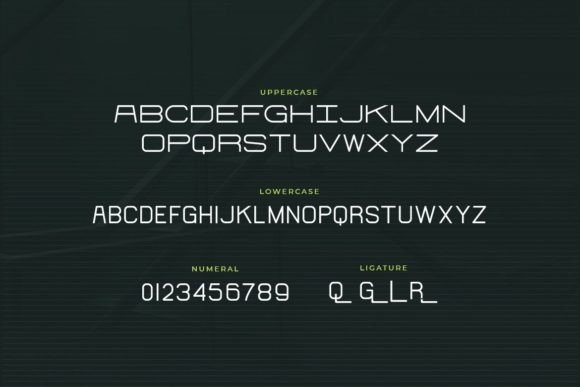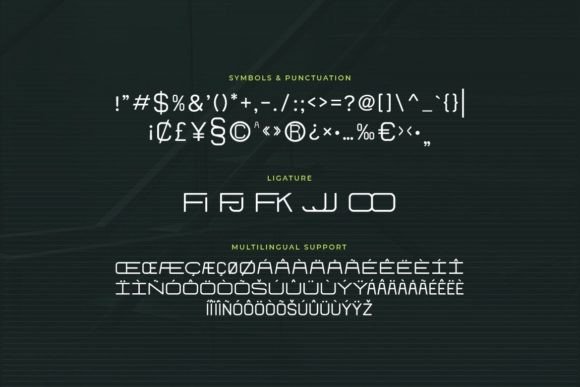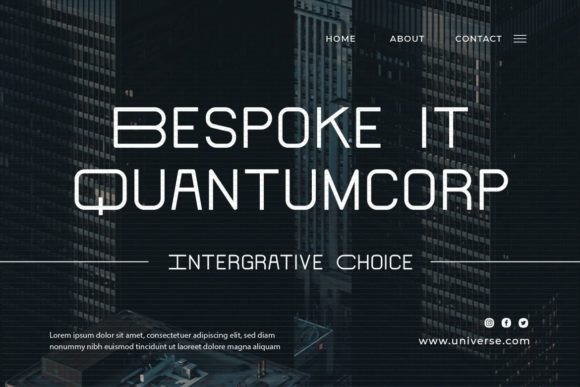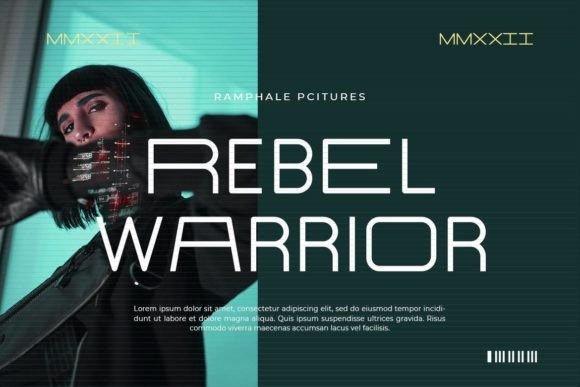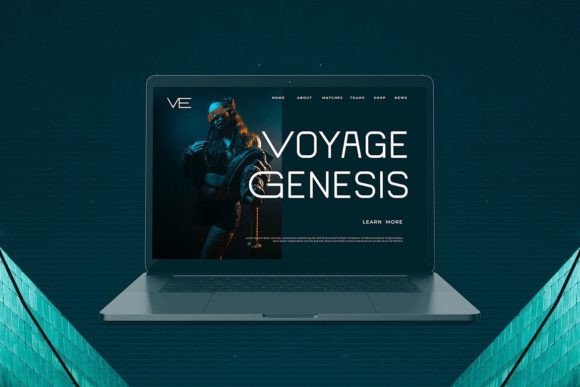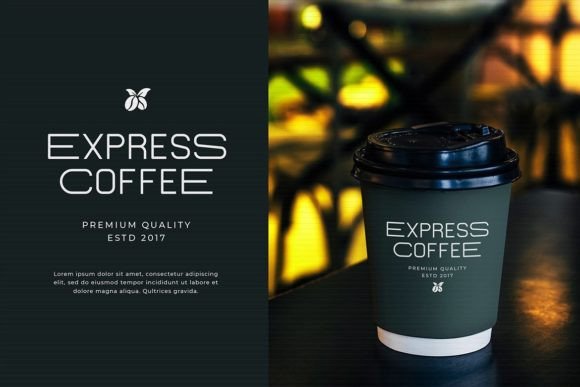
Introduction to Ramphele Font
Have you ever stared at a blank page, waiting for the perfect font to bring your creative project to life? For designers, finding the right font can be a game-changer. It’s the difference between a mediocre design and a stunning one that grabs attention and leaves a lasting impression.
That’s where the Ramphele Font comes in – a high-quality, mixed-width typeface that’s perfect for business cards, posters, websites, and so much more. With its modern look and transparent background, this font is sure to elevate any design project. And the best part? It’s available for free download, making it an invaluable resource for designers of all levels.
Whether you’re working on a freelance project or a full-fledged design campaign, the Ramphele Font is a valuable addition to your design toolkit. With its PUA encoded glyphs and ligatures, you’ll have access to a world of creative possibilities and be able to take your designs to the next level.
Key Features of Ramphele Font
- High-quality, professional design perfect for creative projects and design resources.
- Designed with a unique aesthetic, setting it apart from other free fonts available for download.
- Features a clean and modern design, ideal for use in logos, branding materials, and digital displays.
Honest Review: Ramphele Font
I recently stumbled upon the Ramphele Font, and I must say it’s a great addition to my design resource library. The font has a unique, high-quality design that makes it perfect for creative projects.
- ✨ The font has a transparent background, making it easy to overlay on top of images or other design elements.
- ✨ The font has a modern, sleek design that makes it perfect for corporate or creative projects.
- ⚠️ The font may not be suitable for all types of projects, particularly those that require a more traditional or serif font.
Overall, I’m impressed with the Ramphele Font and would definitely recommend it to designers looking for a high-quality, modern font for their creative projects.
Ramphele Font
The Ramphele Font is a high-quality, free download design resource ideal for creative projects. With its transparent background, this font is versatile and can be used in various applications.
Tips for Getting the Most Out of Ramphele Font
For the best results, use the Ramphele Font in conjunction with other high-quality design resources. Experiment with different font sizes, colors, and arrangements to create a visually appealing design.